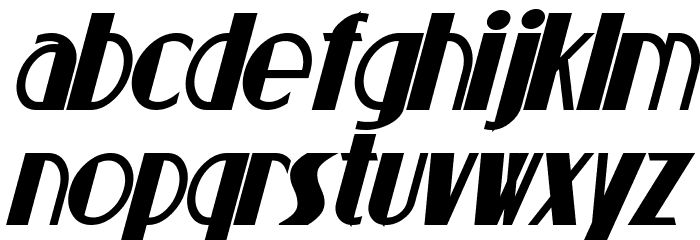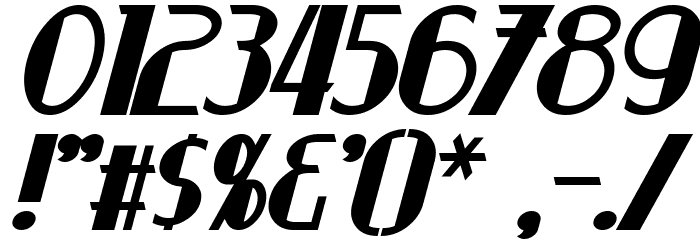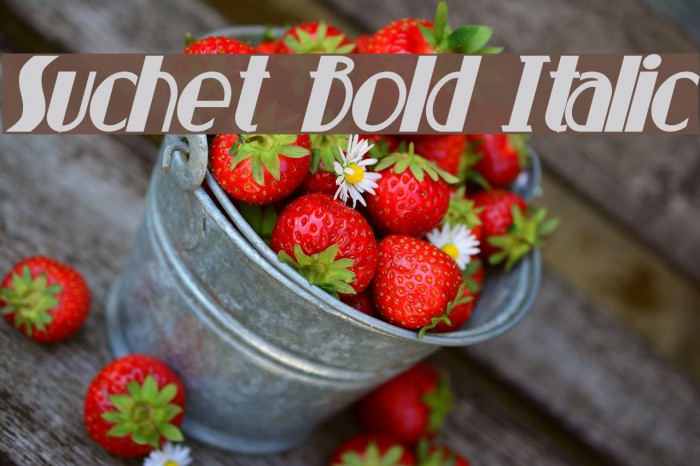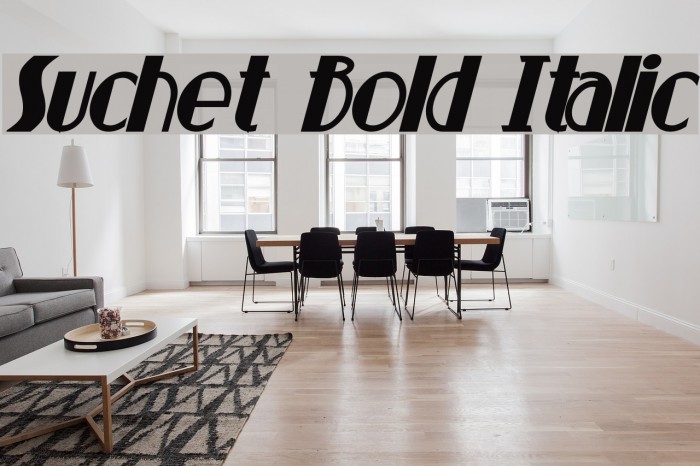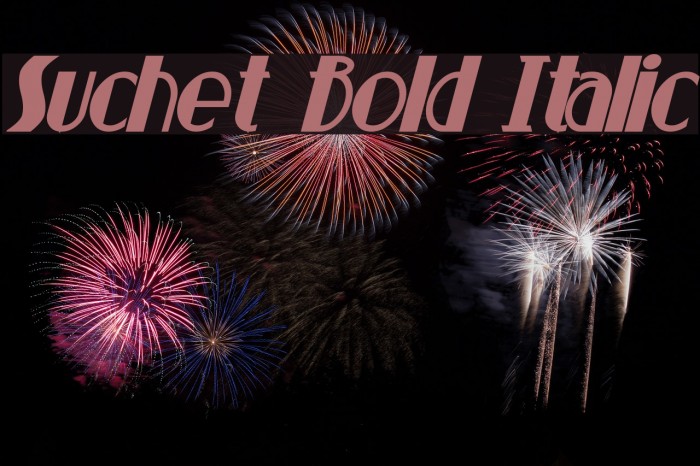
Suchet Bold Italic Font
This font features a bold and italicized style with a modern and dynamic appearance. The characters are designed with a forward-leaning slant, giving a sense of motion and energy. The strokes are thick and consistent, providing a strong visual impact. The uppercase and lowercase letters maintain a cohesive look, with some unique angular cuts and curves that add to its distinctive style. The numbers and special characters follow the same bold and italicized theme, ensuring uniformity across all glyphs. This font is ideal for projects that require a bold statement and a touch of modern flair.
- Proposed Projects: Ideal for branding, advertising, headlines, and posters where a strong and modern impact is desired.